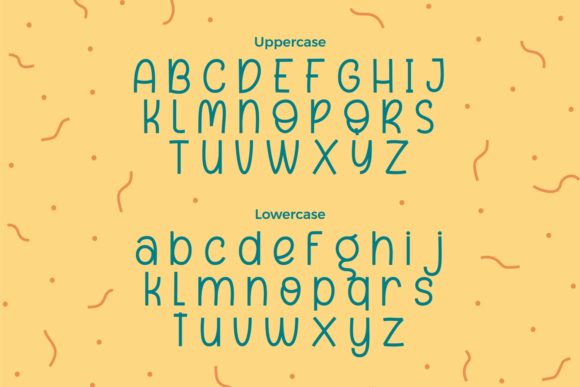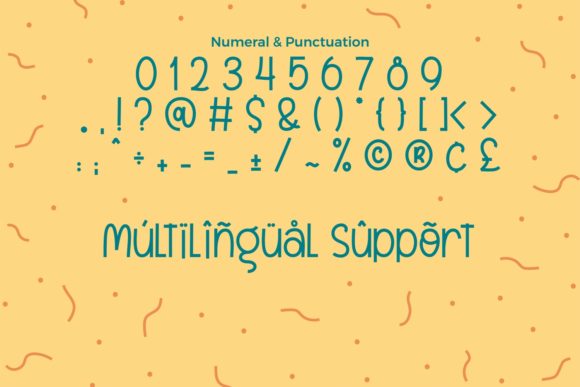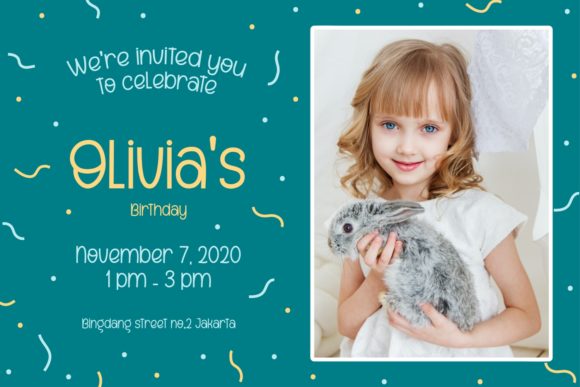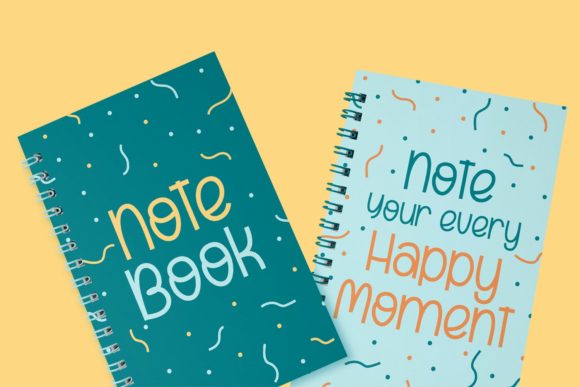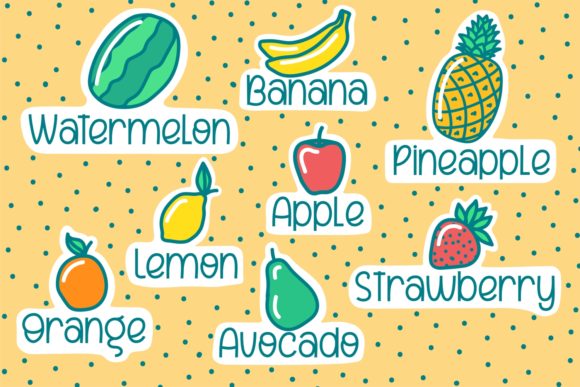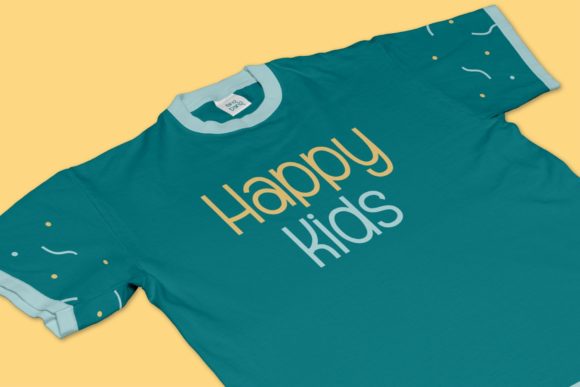
Meet Your New Design BFF: Bing Dang Font
You know that feeling when you’re brainstorming a new design project and you just can’t seem to find the perfect font to bring your ideas to life? You scroll through font libraries, browse through design blogs, and still can’t quite land on the one that makes your heart skip a beat. Well, we’ve got some exciting news for you!
Introducing the Bing Dang Font, a playful and modern display font that’s sure to elevate each of your design ideas. This simple yet cute font is perfect for adding a touch of whimsy to your branding, social media graphics, or even just a fun quote on a t-shirt. As a designer, you know how valuable it is to have a reliable go-to font that can help you create stunning visuals in no time.
Bing Dang Font Key Features
- Font Family: Bing Dang is a sans-serif font family designed for digital use.
- Unique Characteristics: Bing Dang features a unique blend of modern and traditional design elements, with a focus on legibility and readability.
Bing Dang Font Review
Initially, I was intrigued by the Bing Dang font’s unique and playful vibe ✨. The combination of rounded shapes and bold lines creates a fun and energetic feel that’s perfect for capturing attention in digital or print media. The font also boasts a wide range of languages supported, making it a versatile option for designers.
However, upon closer inspection, I noticed a few limitations that may impact its usability ⚠️. For instance, the font’s weight and width can sometimes feel inconsistent, which may affect readability, especially at smaller sizes. Additionally, the font’s bold weights can appear slightly pixelated when used at larger sizes.
Here are some key features to consider:
- Unique and playful design ✨
- Wide range of languages supported
- Available in multiple weights and styles
- May struggle with readability at smaller sizes ⚠️
- May appear pixelated at larger sizes ⚠️
Overall, the Bing Dang font is a solid option for designers looking to add some personality to their projects. While it may have some limitations, its unique design and versatility make it a great choice for those who want to stand out from the crowd.
For the best results, use Bing Dang Font in bold or italic styles to add emphasis to your text. This font is particularly well-suited for use in Asian-inspired designs, such as posters, flyers, and social media graphics.